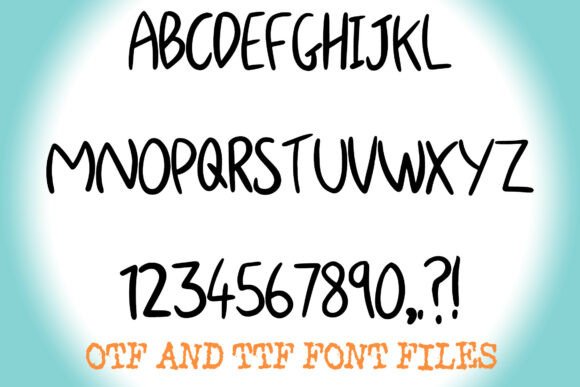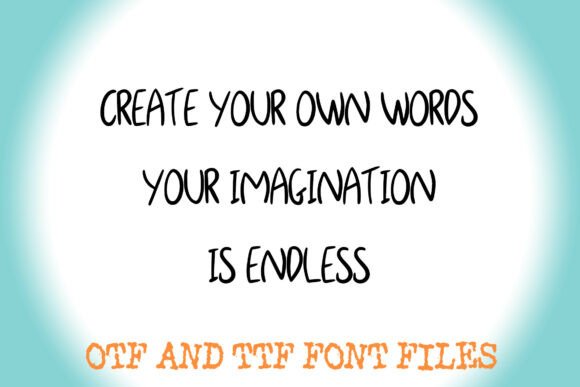
Casual Handwriting Font: Adding a Touch of Effortless Charm to Your Designs
Are you looking for a way to infuse your designs with a sense of effortless charm and genuine warmth? Look no further than Casual Handwriting Font! This beautifully approachable typeface is perfect for capturing the spontaneous, relaxed feel of everyday writing, adding a unique and inviting touch to any creative project.
The Power of Handwritten Fonts
Handwritten fonts have a way of bringing a sense of personality and humanity to a design. They can instantly convey a sense of warmth and approachability, making them perfect for projects where you want to connect with your audience on a more personal level. Casual Handwriting Font takes this to the next level with its clear, fluid strokes and charmingly natural, hand-drawn quality.
Each character in Casual Handwriting Font is crafted to mimic the look and feel of everyday writing. The strokes are smooth and fluid, with a subtle variation in line width that gives the font a sense of natural movement. The letters are also spaced perfectly, creating a sense of rhythm and flow that makes the text easy to read and understand.
One of the best things about Casual Handwriting Font is its versatility. It’s an incredibly flexible typeface that can be used in a wide range of design projects, from personal branding and social media posts to journal layouts and casual invitations. Whether you’re creating engaging content, adding a custom feel to digital products, crafting cheerful messages, or personalizing printable materials, this font is sure to bring a unique and inviting touch to your designs.
Perfect for Personal Branding
Personal branding is all about creating a unique and recognizable identity that sets you apart from the crowd. Casual Handwriting Font is the perfect tool for this, with its friendly and approachable vibe. Use it to create custom business cards, letterheads, or social media graphics that showcase your personality and style.
Great for Journaling and Scrapbooking
If you’re a journaler or scrapbooker, you’ll love Casual Handwriting Font! Its informal yet exceptionally legible forms make it perfect for adding a personal touch to your journal layouts or scrapbooking projects. Use it to write titles, captions, or journal entries that add a sense of warmth and personality to your pages.
Ideal for Social Media and Blog Graphics
Social media and blog graphics are a great way to connect with your audience and add a personal touch to your online presence. Casual Handwriting Font is perfect for this, with its friendly and approachable vibe. Use it to create eye-catching graphics, titles, and captions that make your content stand out.
Why Choose Casual Handwriting Font?
So why choose Casual Handwriting Font over other typefaces? Here are just a few reasons:
- Unique and Inviting: Casual Handwriting Font has a unique and inviting quality that sets it apart from other typefaces. Its friendly and approachable vibe makes it perfect for projects where you want to connect with your audience on a more personal level.
- Exceptionally Legible: Despite its informal look, Casual Handwriting Font is exceptionally legible. Its clear and fluid strokes make it easy to read and understand, even at small sizes.
- Versatile: Casual Handwriting Font is an incredibly flexible typeface that can be used in a wide range of design projects. Whether you’re creating engaging content, adding a custom feel to digital products, or crafting cheerful messages, this font is sure to bring a unique and inviting touch to your designs.
- Handmade Aesthetic: Casual Handwriting Font has a handmade aesthetic that gives it a sense of warmth and personality. Its charmingly natural, hand-drawn quality makes it perfect for projects where you want to add a personal touch.
Casual Handwriting Font is a beautifully approachable typeface that’s perfect for adding a touch of effortless charm and genuine warmth to your designs. Its unique and inviting quality, exceptionally legible forms, and versatile design make it an ideal choice for a wide range of creative projects. Whether you’re a designer, crafter, or simply someone who loves to create, Casual Handwriting Font is sure to bring a sense of fun, originality, and handmade aesthetic to your work.